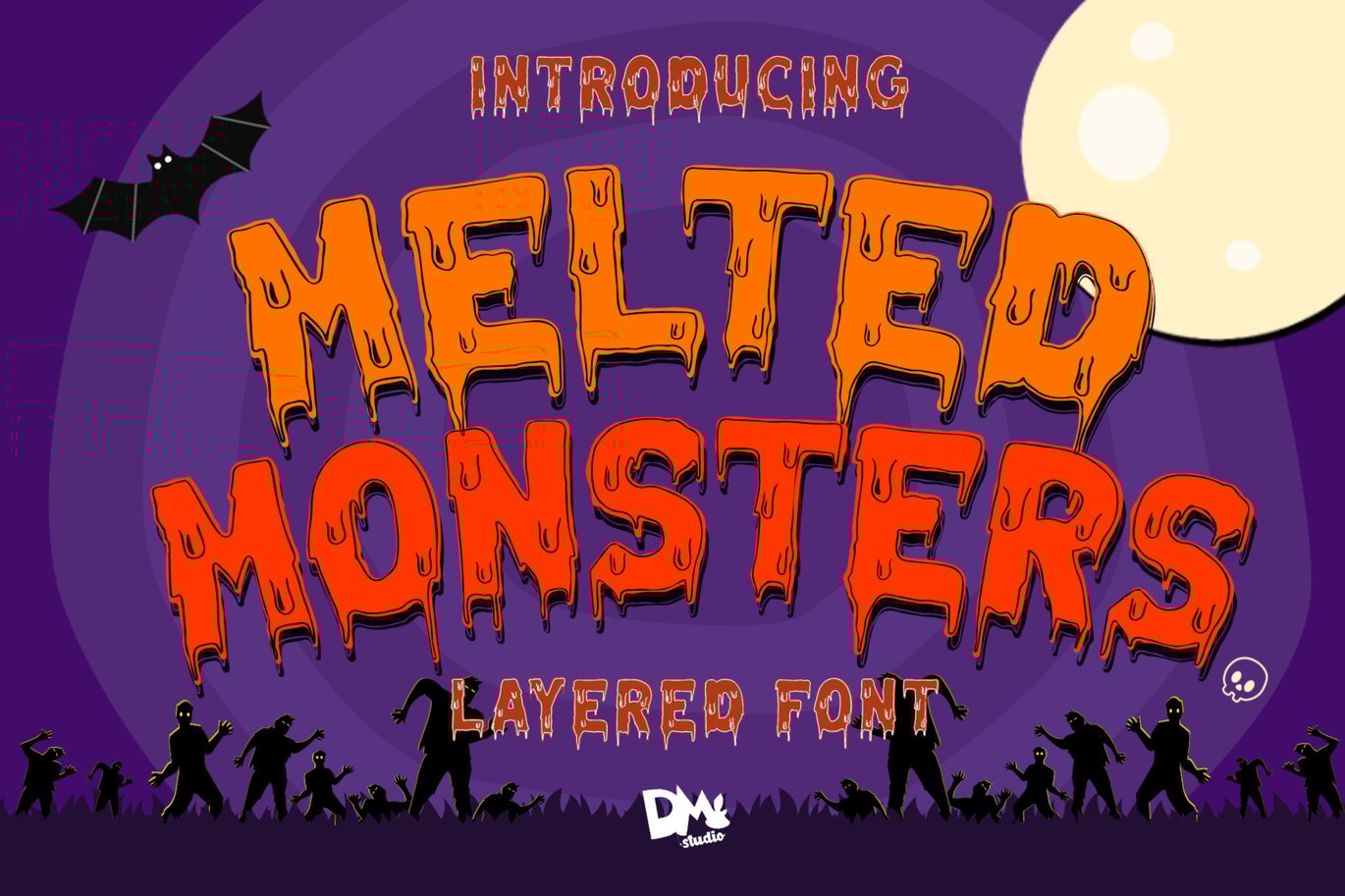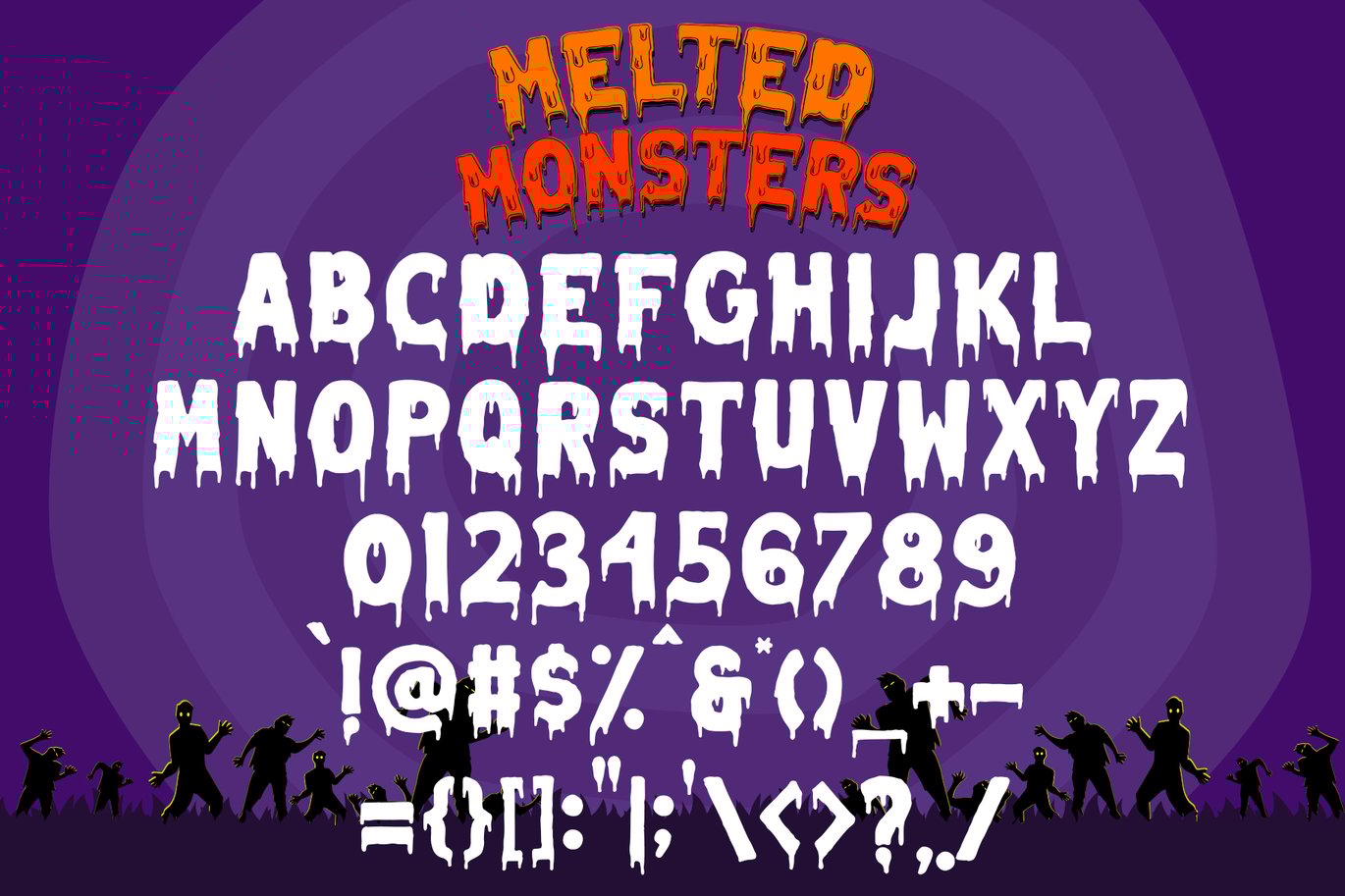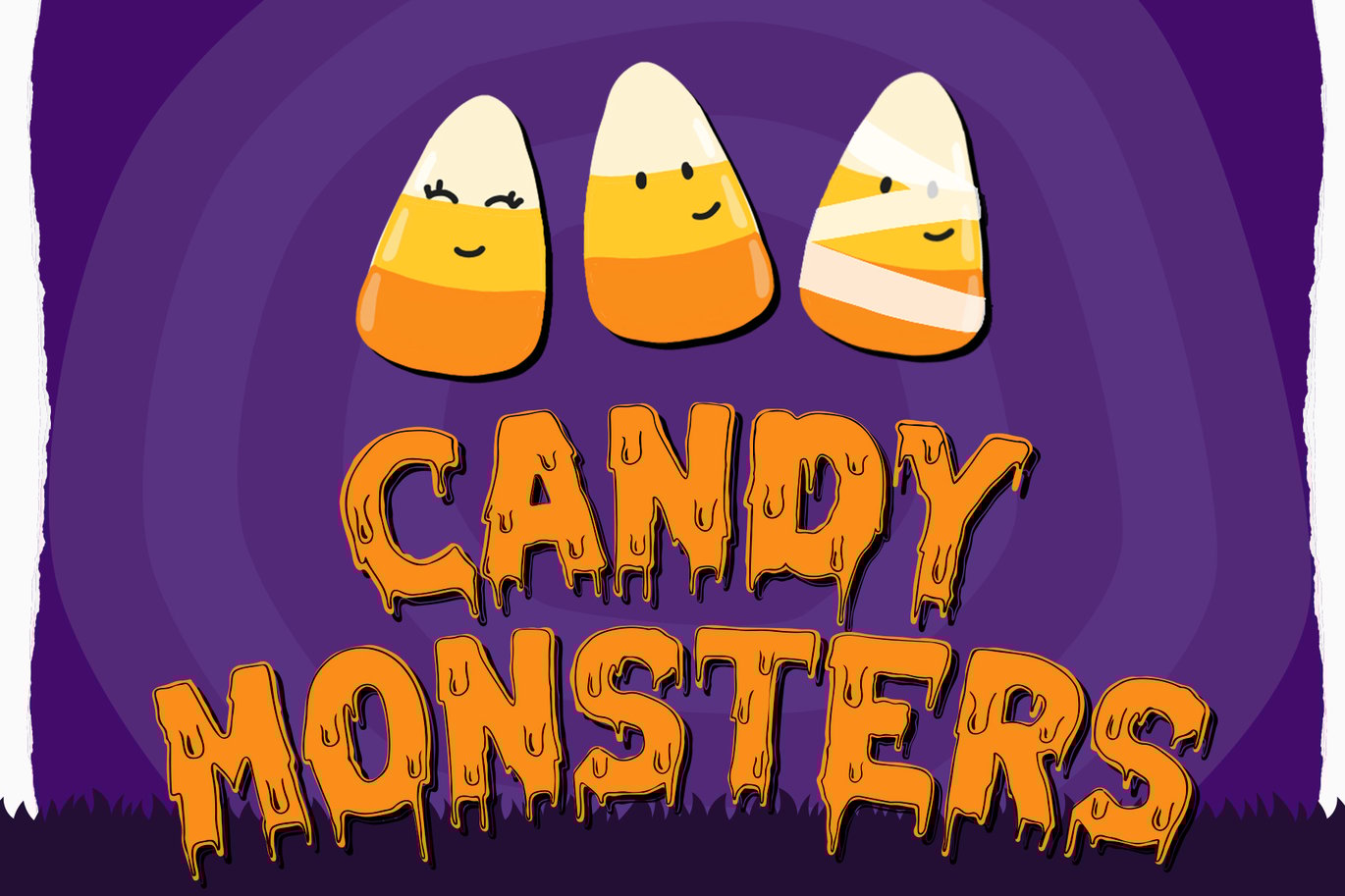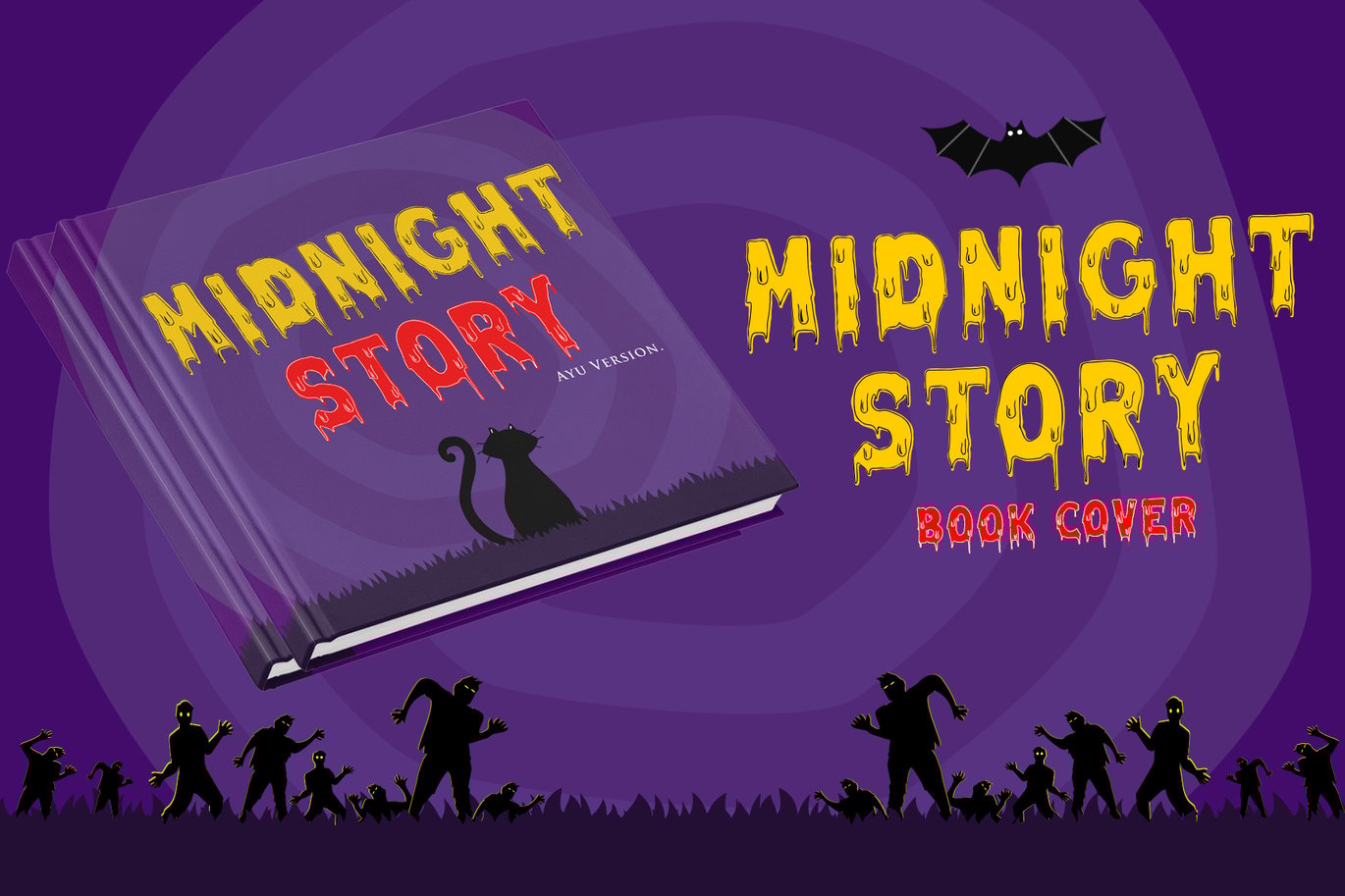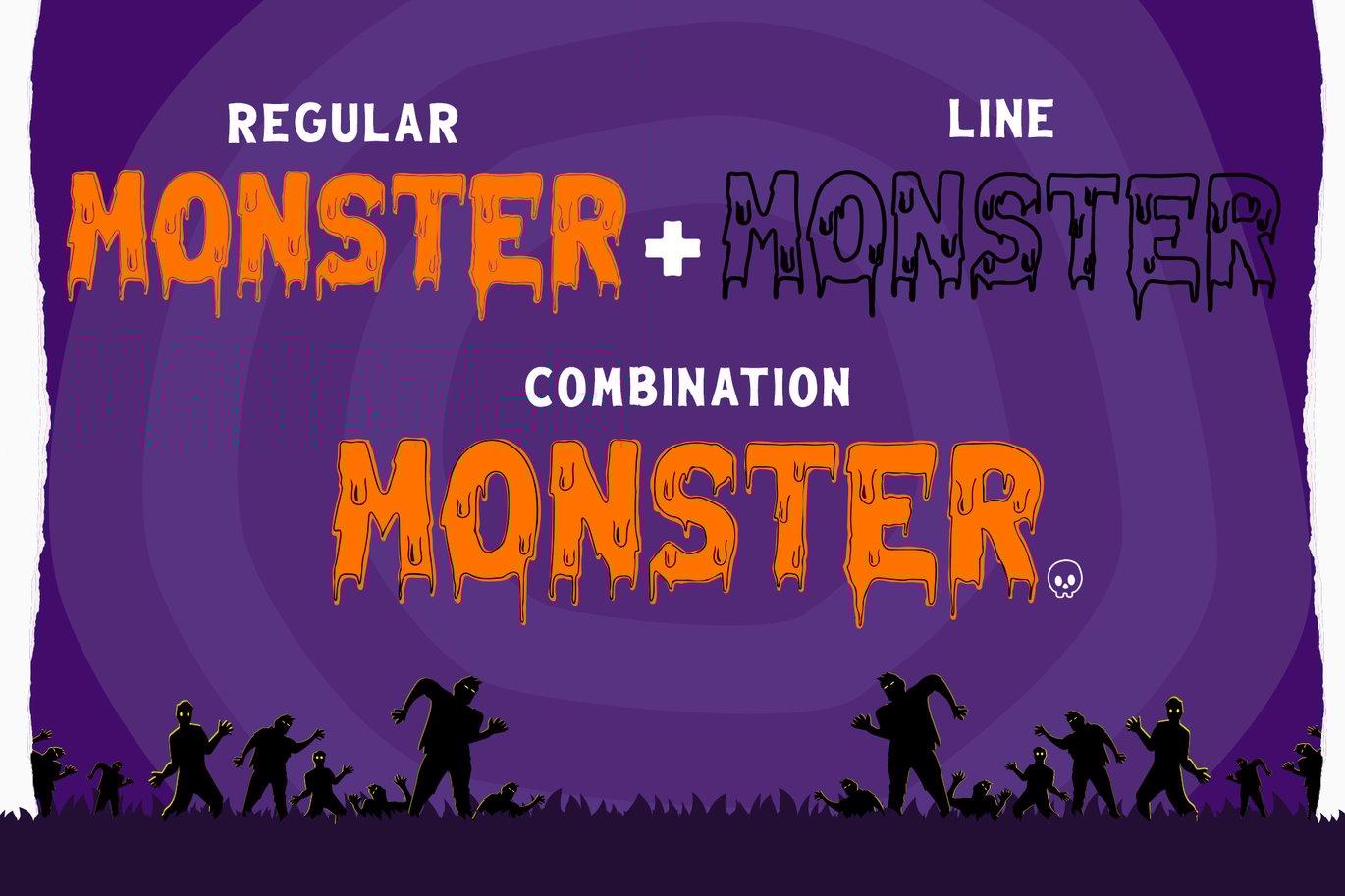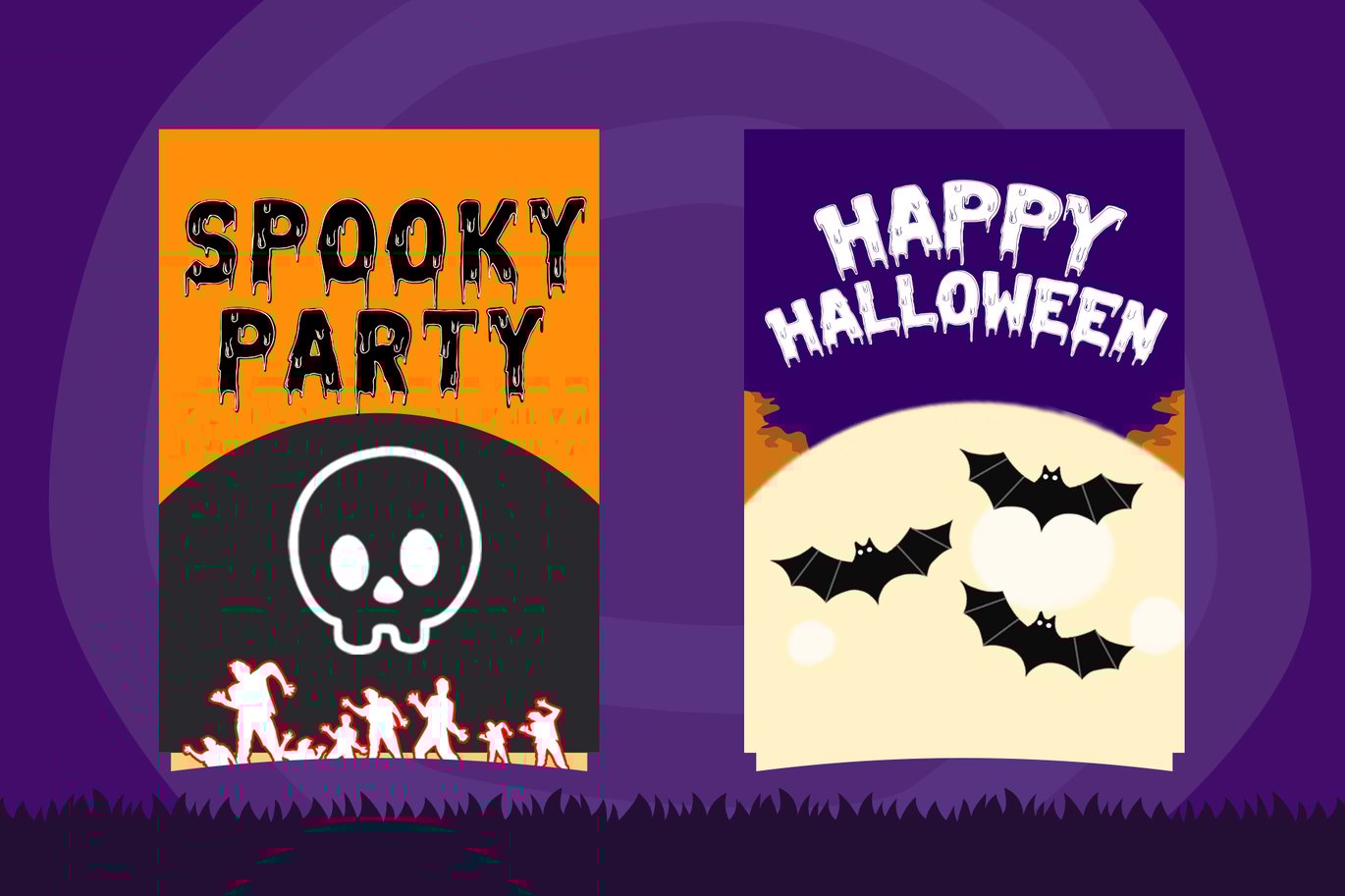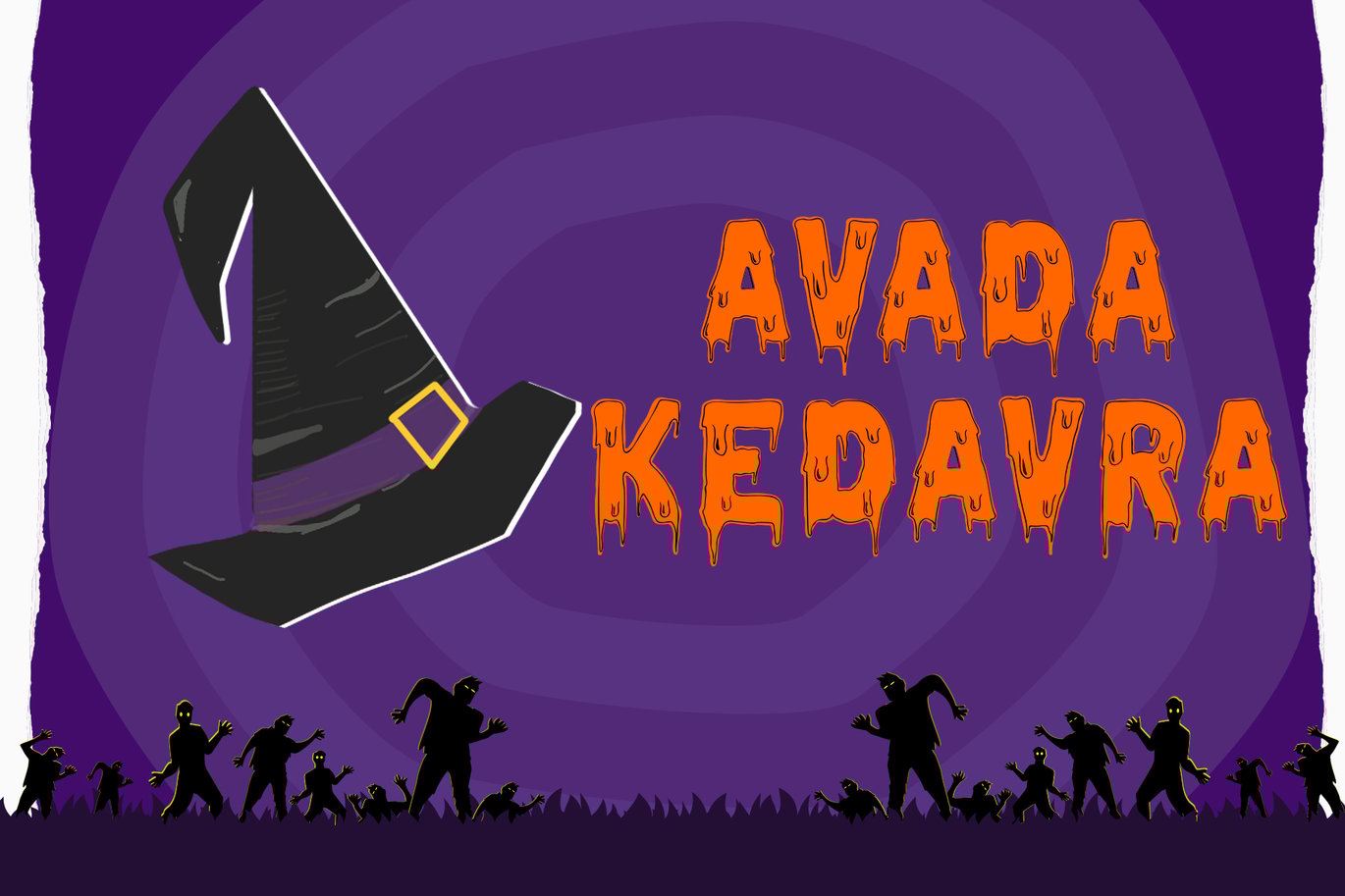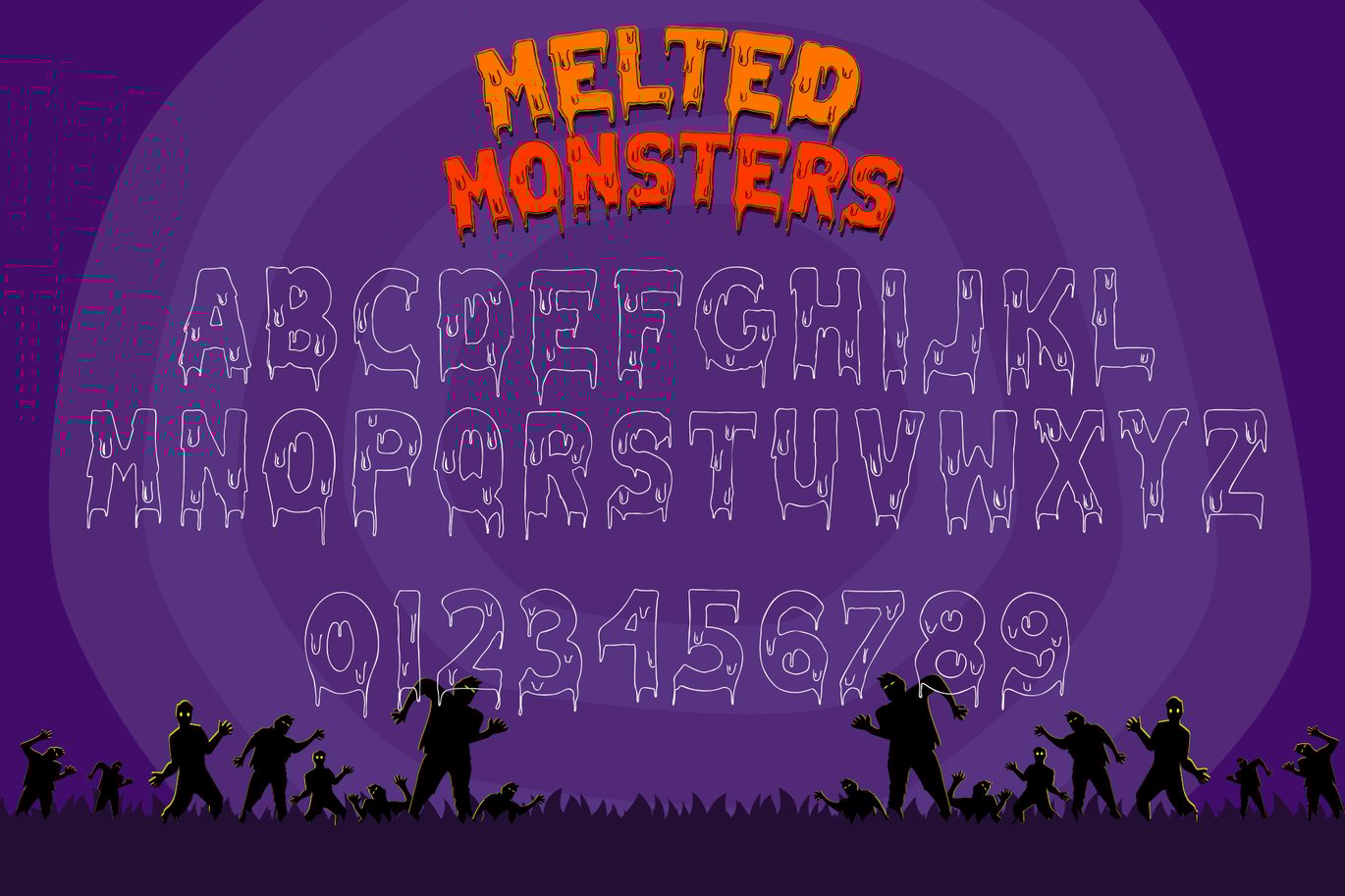
Melted Monster – Halloween Pack Layered Font
Greet your special moment with Melted Monsters Font!
This is a layered font display with “melted” style! Great for any
products, posters, cards, crafting, printing, brand or logo for your
business, social media posts and much more!
-All in Capital letters, numeric and standard symbols
-Contains dual font : solid style and line style
-Support multilingual
NOTED :
-The multilinguals and symbols only on the Solid Style Font ( Melted Monsters Regular )